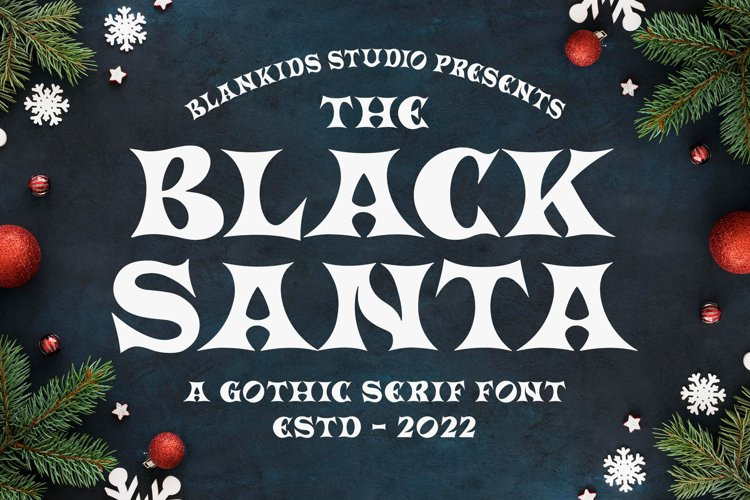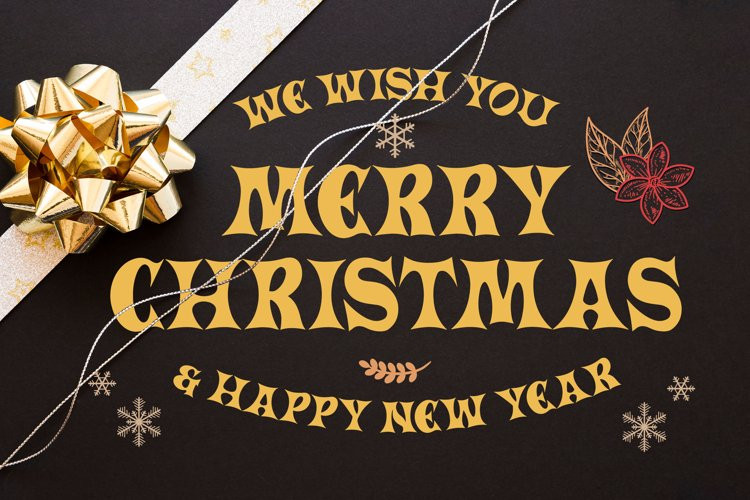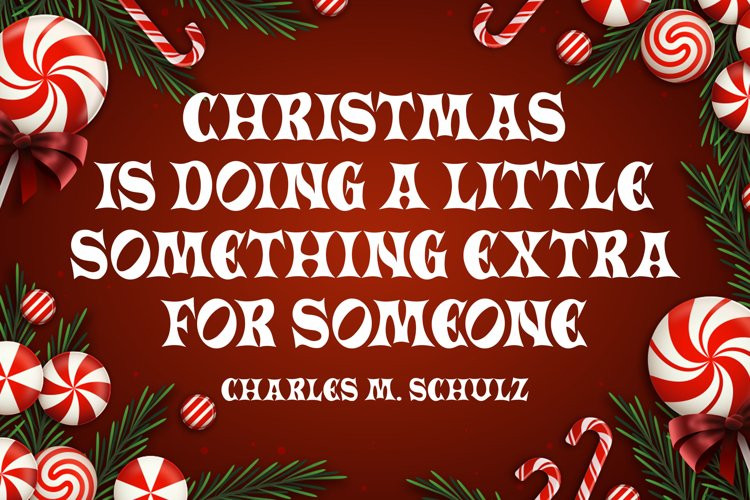
Black Santa Font
Black Santa FontBlack Santa a Gothic Serif Font, Inspiring from gothic style typography. This font is perfect for a design that makes it more attractive and playful. made with a very good level of aesthetics making this font suitable for book cover, children book, comic, poster, packging, merchandise, logotype and much more.